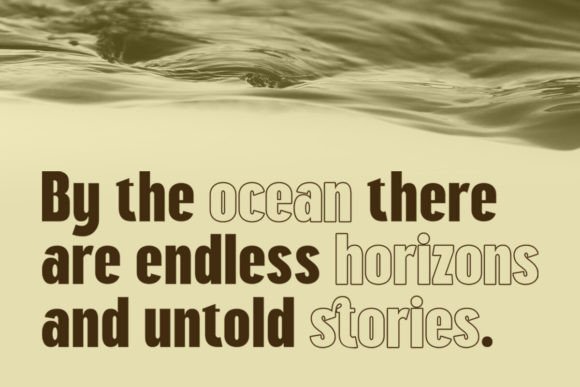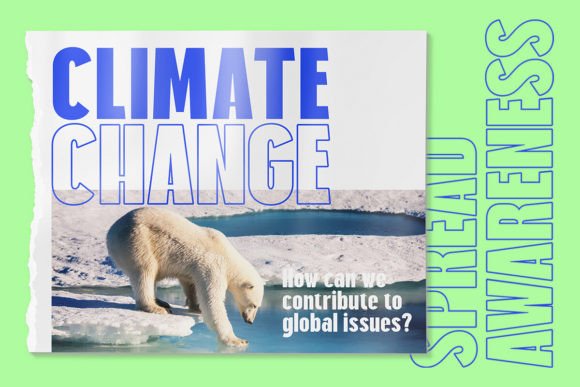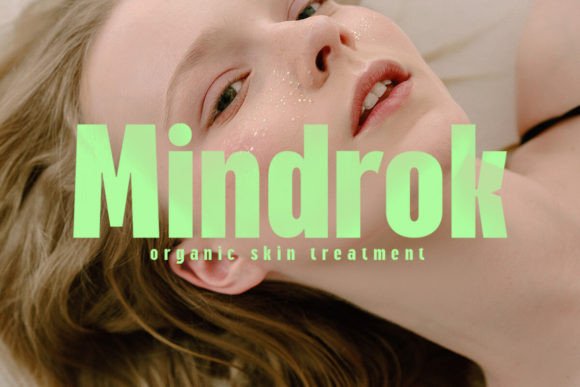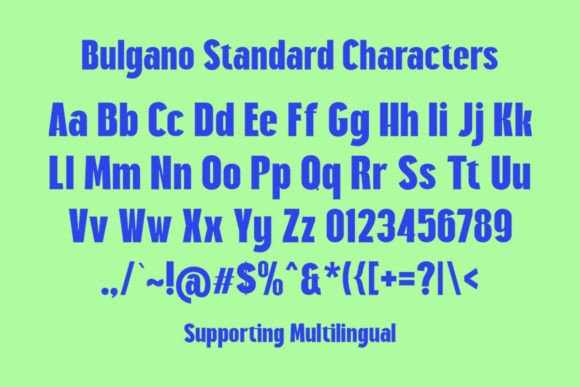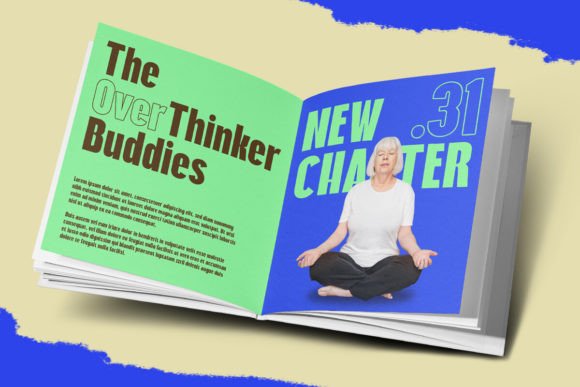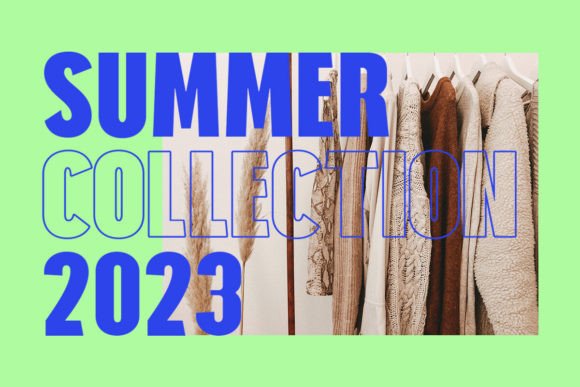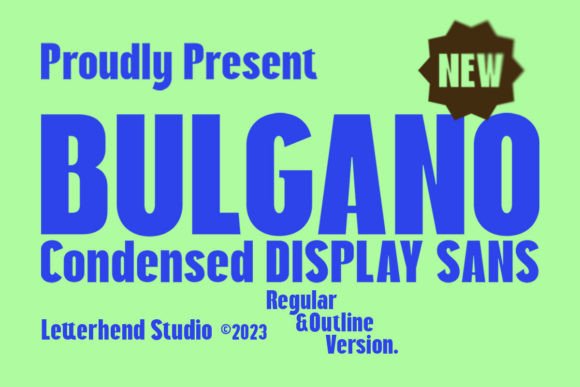
Bulgano Font: Elevate Your Designs with Classic & Casual Flair
Are you on the hunt for a font that effortlessly blends classic sophistication with casual charm? Look no further than Bulgano Font, a condensed display font designed to elevate your visual creations. With its sleek lines and versatile style, Bulgano is perfect for a wide range of design applications, from labels and logos to magazines, books, and beyond.
What is Bulgano Font?
Bulgano Font is a thoughtfully crafted, condensed display font that offers two distinct styles: regular and outline. This dual-style approach provides designers with the flexibility to experiment with different looks and moods, ensuring that their designs always stand out. Whether you’re aiming for a bold statement or a subtle hint of elegance, Bulgano has got you covered.
Key Features of Bulgano Font
• Classic & Casual Looks: Bulgano’s design strikes the perfect balance between classic sophistication and casual charm, making it incredibly versatile for various design projects.
• 2 Styles: Choose from two distinct styles – regular and outline – to match your design’s tone and purpose.
• Condensed Display Font: Ideal for headlines, titles, and short texts, Bulgano’s condensed format ensures your message is conveyed clearly and effectively.
Bulgano Font’s adaptability makes it an excellent choice for numerous design projects, including:
• Labels & Logos: Create eye-catching labels and memorable logos that capture the essence of your brand.
• Magazines & Books: Add a touch of elegance to your publications with Bulgano’s classic and casual flair.
• Greeting/Wedding Cards: Make your cards truly special with a font that exudes warmth and sophistication.
• Packaging: Stand out on store shelves with packaging designs that are both stylish and effective.
• Fashion & Makeup: Elevate your fashion and makeup branding with a font that’s both trendy and timeless.
• Stationery & Novels: Add a professional yet personal touch to your stationery and novels.
• Labels & Advertising: From product labels to ad campaigns, Bulgano ensures your message is clear, compelling, and visually appealing.
Why Choose Bulgano Font?
In a world where design trends are constantly evolving, Bulgano Font offers a refreshing blend of classic charm and modern versatility. Its condensed display format, coupled with two distinct styles, provides designers with a powerful tool to convey their message effectively. Whether you’re a professional designer or a crafty DIY enthusiast, Bulgano is poised to become your go-to font for projects that demand a bit of elegance and a lot of personality.
Bulgano Font is more than just a typeface; it’s a design companion that can elevate your projects with its classic yet casual aesthetic. Its versatility, paired with its condensed display format and dual styles, makes it an invaluable asset for designers and crafters alike. Whether you’re embarking on a professional design project or a personal crafting endeavor, Bulgano Font is your key to creating visually stunning and effective designs.